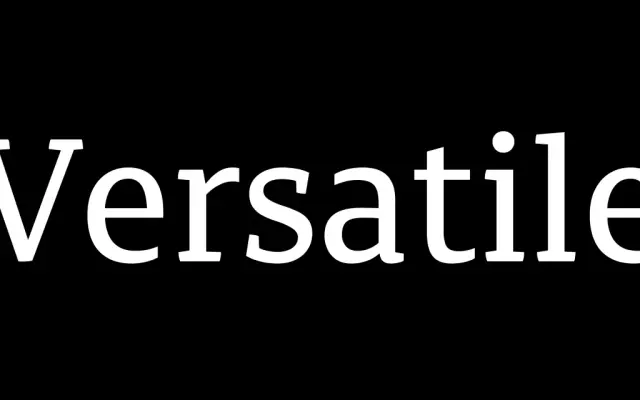
Canberra FY
A low-contrast serif with asymmetric short serifs and rounded alternates, designed for editorial hierarchies from small-body text to bold headings.
Five weights from Light to Black, each with a matching italic, cover text and display roles within a single family. Asymmetric, short serifs give it a lighter, less formal register than classical text serifs, while rounded alternates for letters such as a, e, g and y allow more casual or approachable settings. Available as a variable font alongside the static styles, making it practical for screen and print workflows where weight flexibility matters.
A low-contrast serif with asymmetric short serifs, sitting between a text and book serif. Its rounded alternates and friendly proportions distinguish it from traditional oldstyle or transitional classifications.